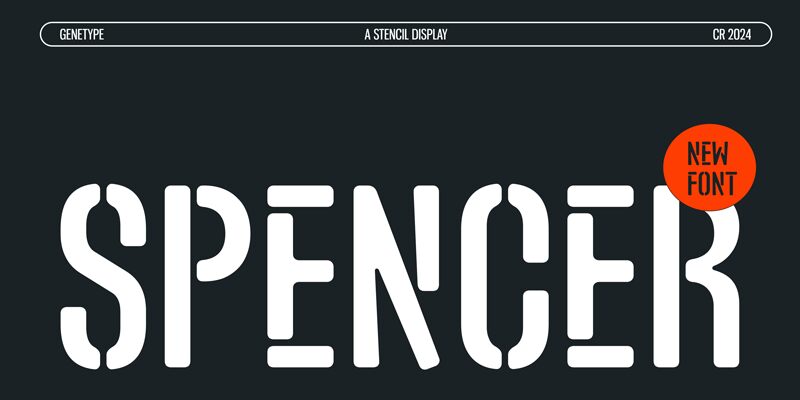
Spencer font family by Genetypeco includes 2 distinct font styles. Characters are very geometric, appearing as rectangles, squares, and circles typical of stencil displays. Symmetrical, versatile, clean, and playful, the font displays a contemporary industrial and utilitarian style inspired by stencil/army alphabets and numbers. This font family has an unusual thick appearance, equally rather distinctive, rare in its looks, and definitely a head-turner.
Spencer should be used in design projects requiring modern sophisticated stencil/army alphabets such as posters, signs, packaging, invitations, flyers, book covers, product labels, social media templates, and others. Its strange style is definitely an asset in branding especially when used in logos. The soft look can translate a wide range of moods and concepts.